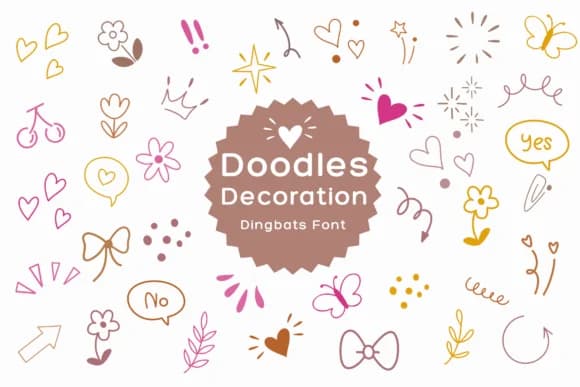
1 / 8About Doodle Decoration Font
Cheerful and full of personality, Doodle Decoration is a playful dingbat font created by Pui Art. It's packed with hand-drawn illustrations, from crowns and stars to arrows, hearts, and delicate flowers, all ready to insert with a single keystroke. The informal, sketch-like style brings visual energy and warmth to layouts that need character and charm without demanding too much attention.
This font shines brightest in scrapbook layouts, where its decorative elements add visual depth and interest without overwhelming the page. Hand-lettered greeting cards become noticeably more inviting when accented with these charming doodles, and it works equally well for creating custom stickers and embellishments in bullet journal spreads. Children's book illustrations benefit from its friendly, accessible feel, as do labels for handmade craft packaging and DIY home decor projects. Available in both outline and solid versions, it gives you complete control over color and styling across design software like Procreate and Affinity Designer.
Pair Doodle Decoration with a clean, minimal sans-serif for any body text, letting the dingbats handle all the decorative heavy lifting. This combination keeps layouts readable while maximizing visual impact and personality. You'll find it waiting on Creative Fabrica, ready to bring a handcrafted spark to your next design project.
Doodle Decoration Font is a versatile dingbats font that works for both headings and body text. Pair it with a contrasting sans-serif or serif font to add visual interest and a clear distinction between titles and body copy.